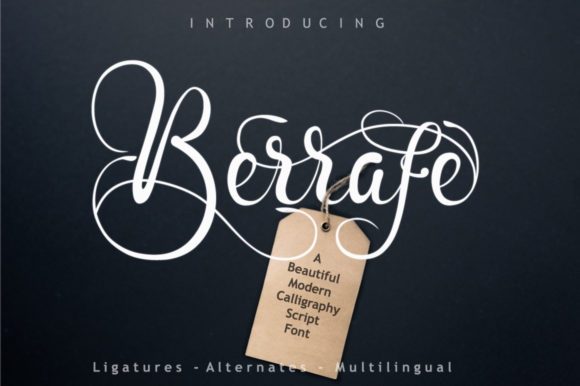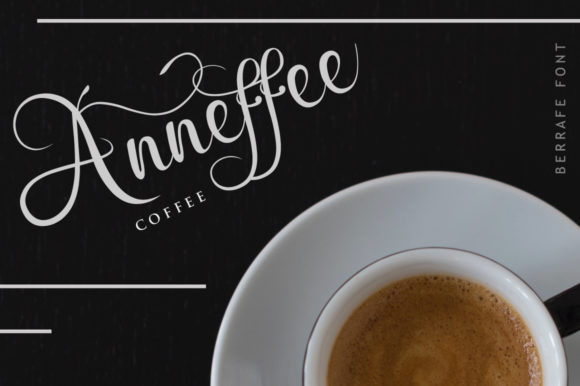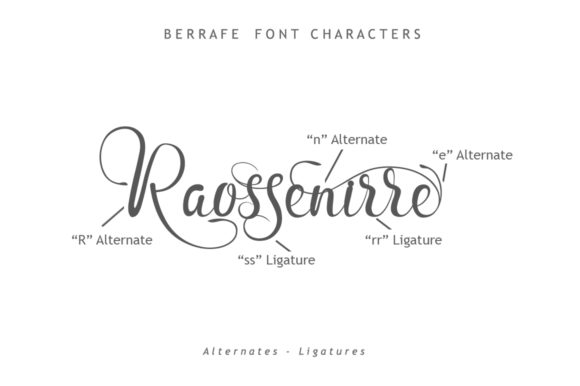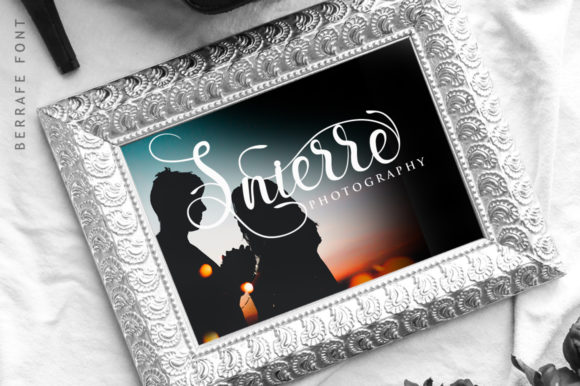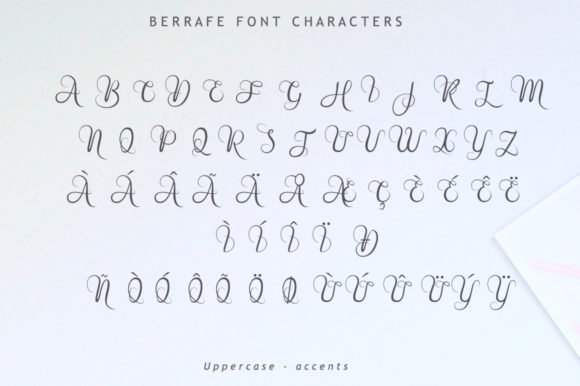
Berrafe Font
About Berrafe Font
The Berrafe is a beautiful modern calligraphy script font. It’s perfect for wedding invites, logos,branding, quotes, product packaging, headers, and more.